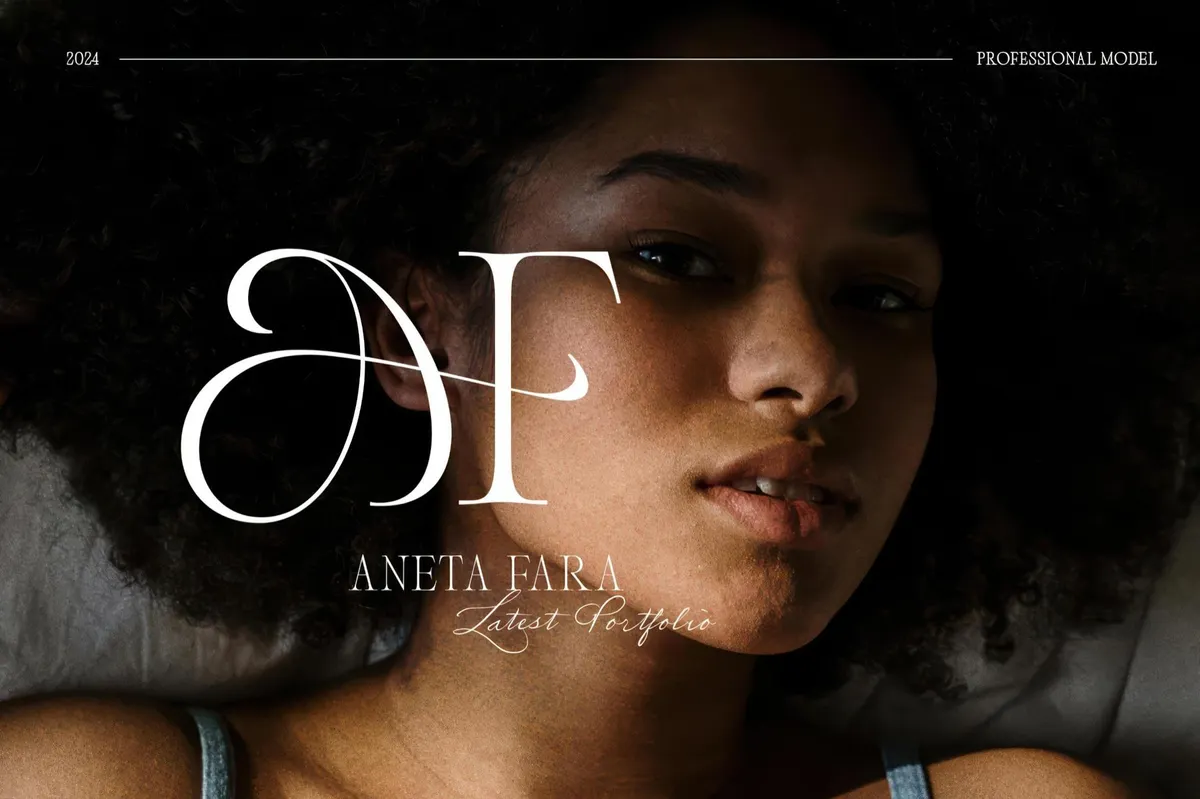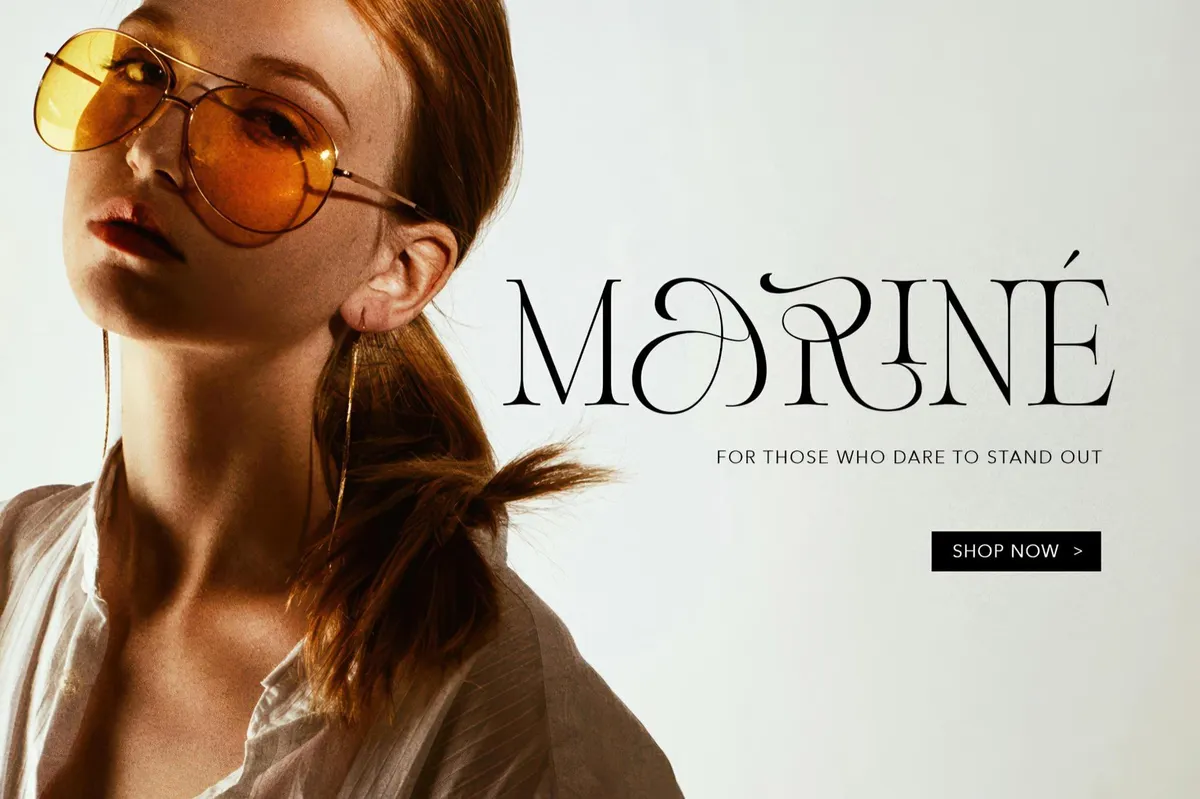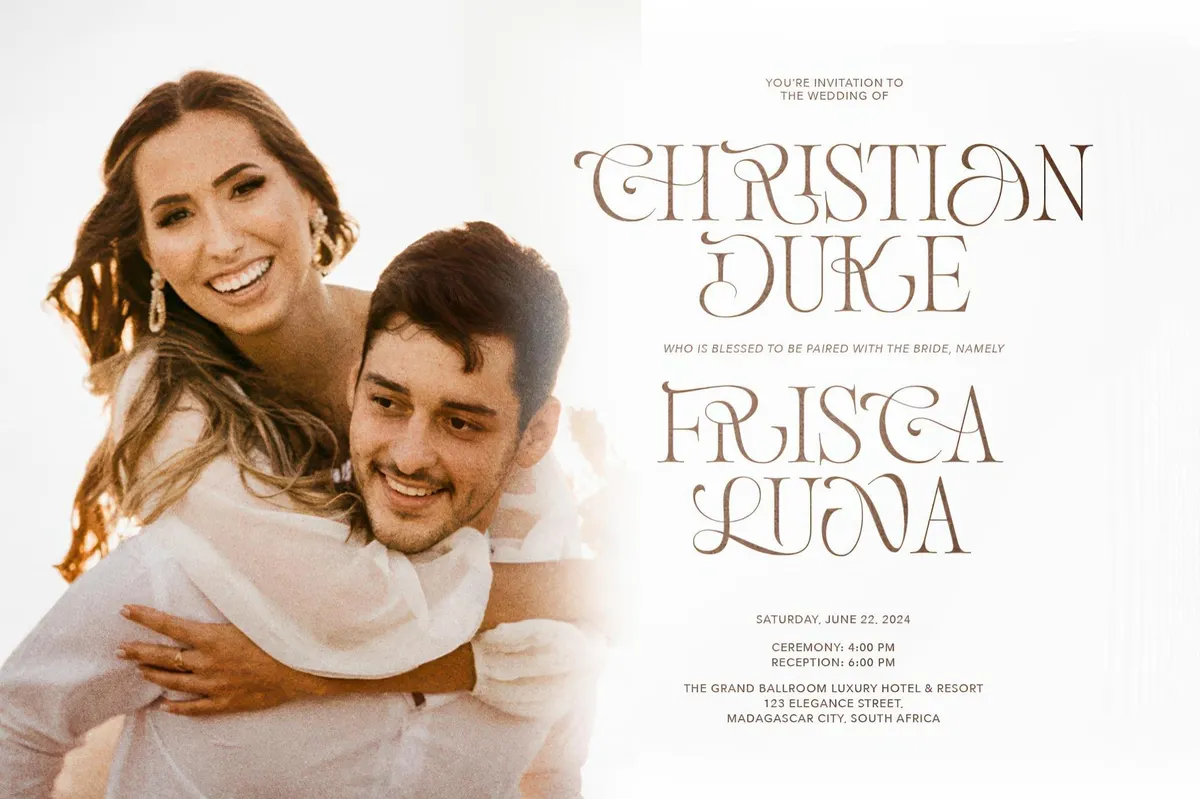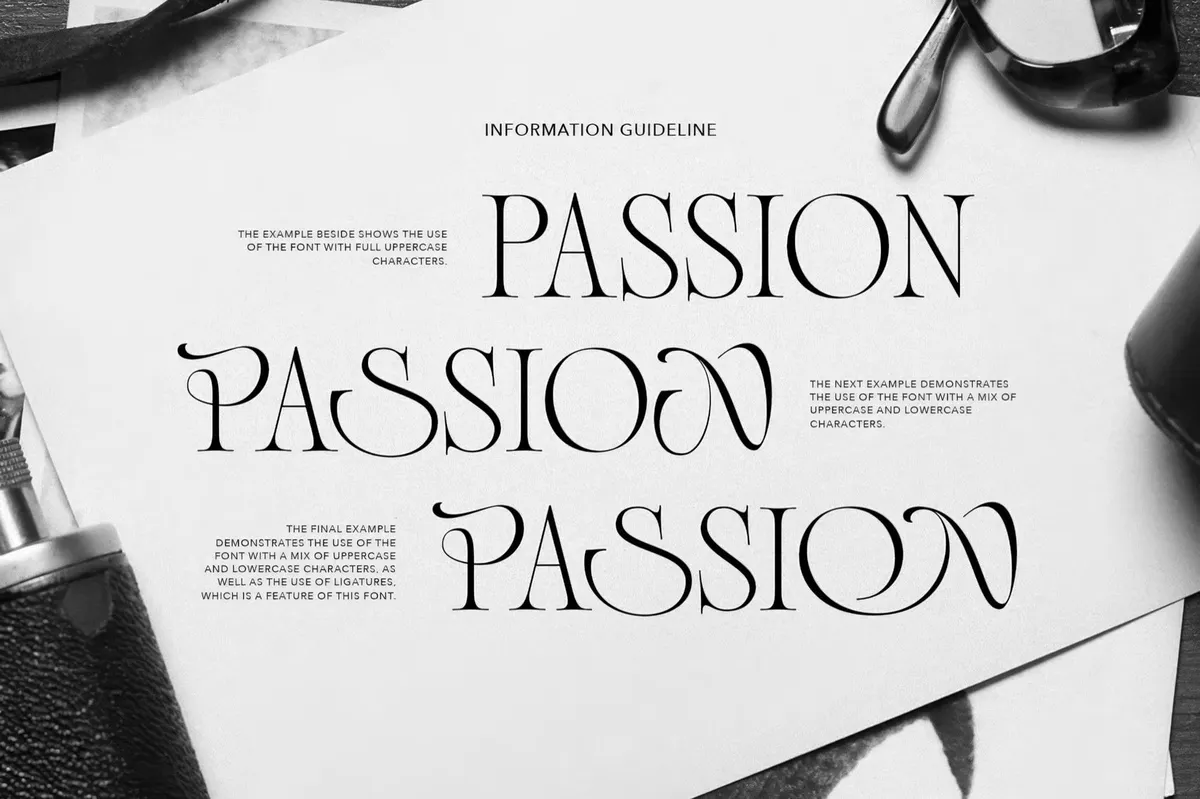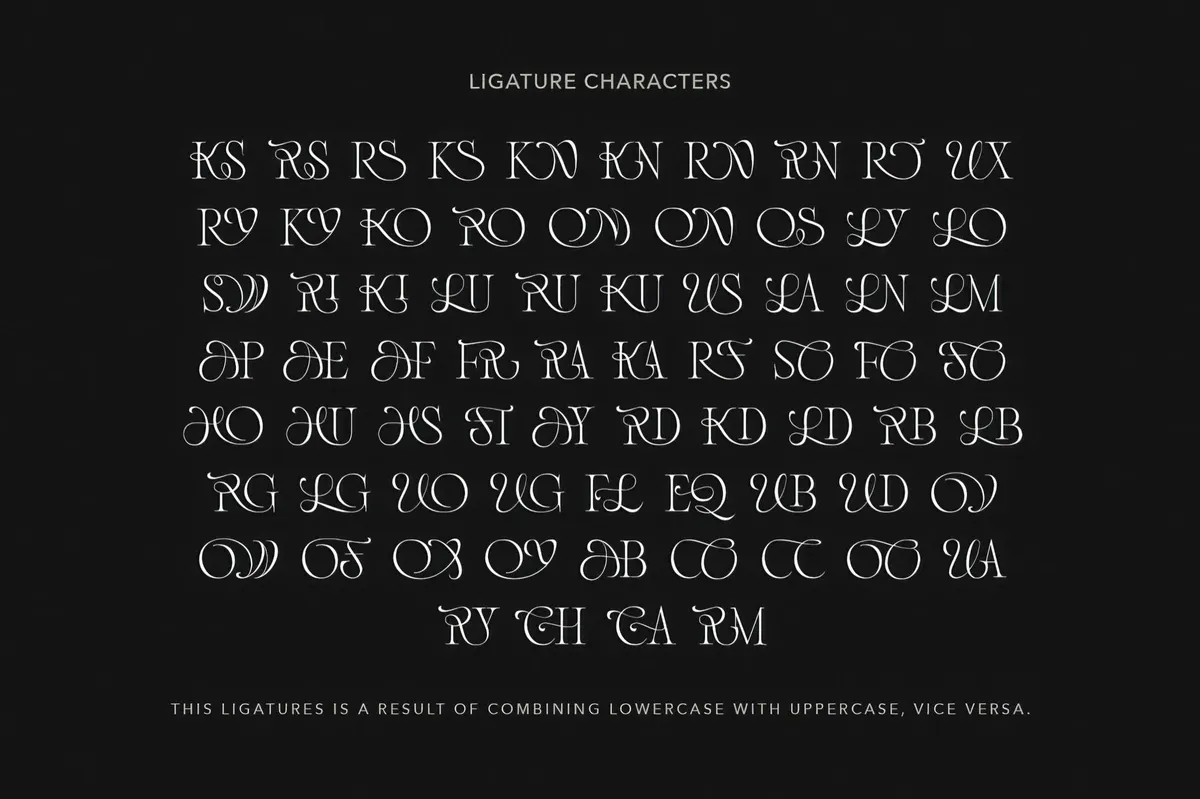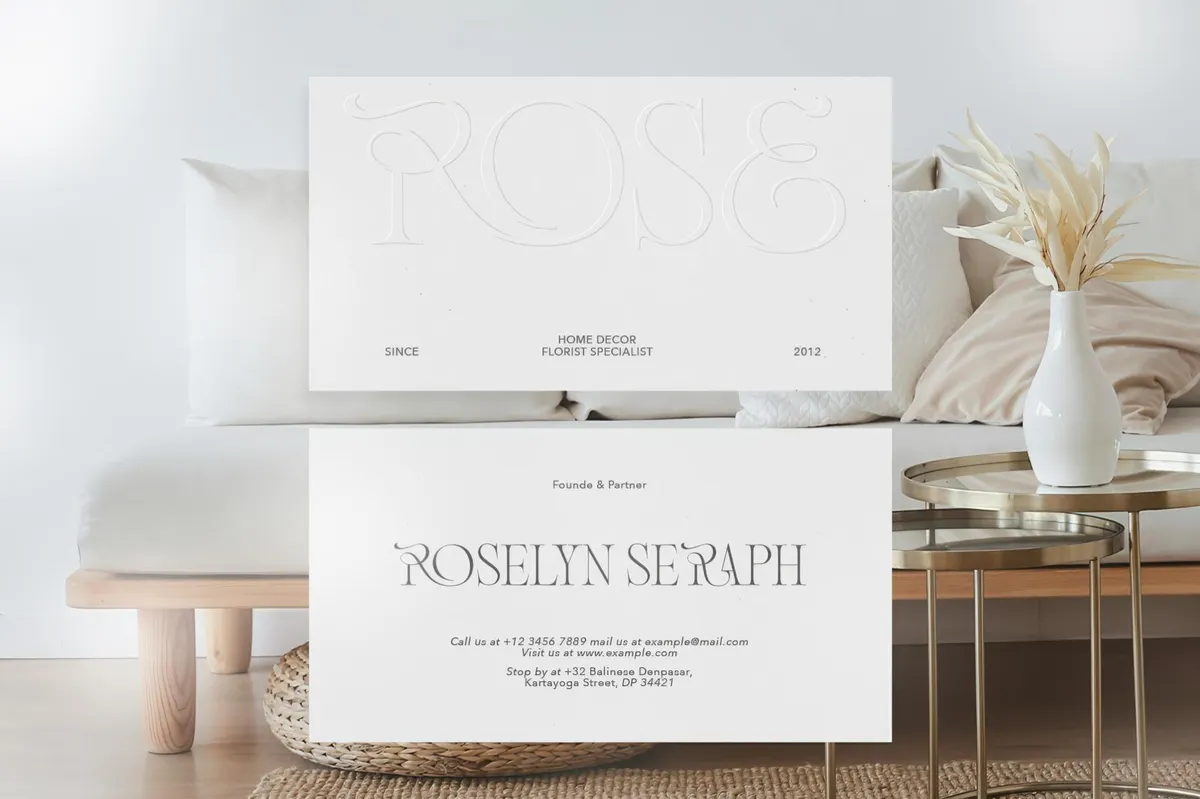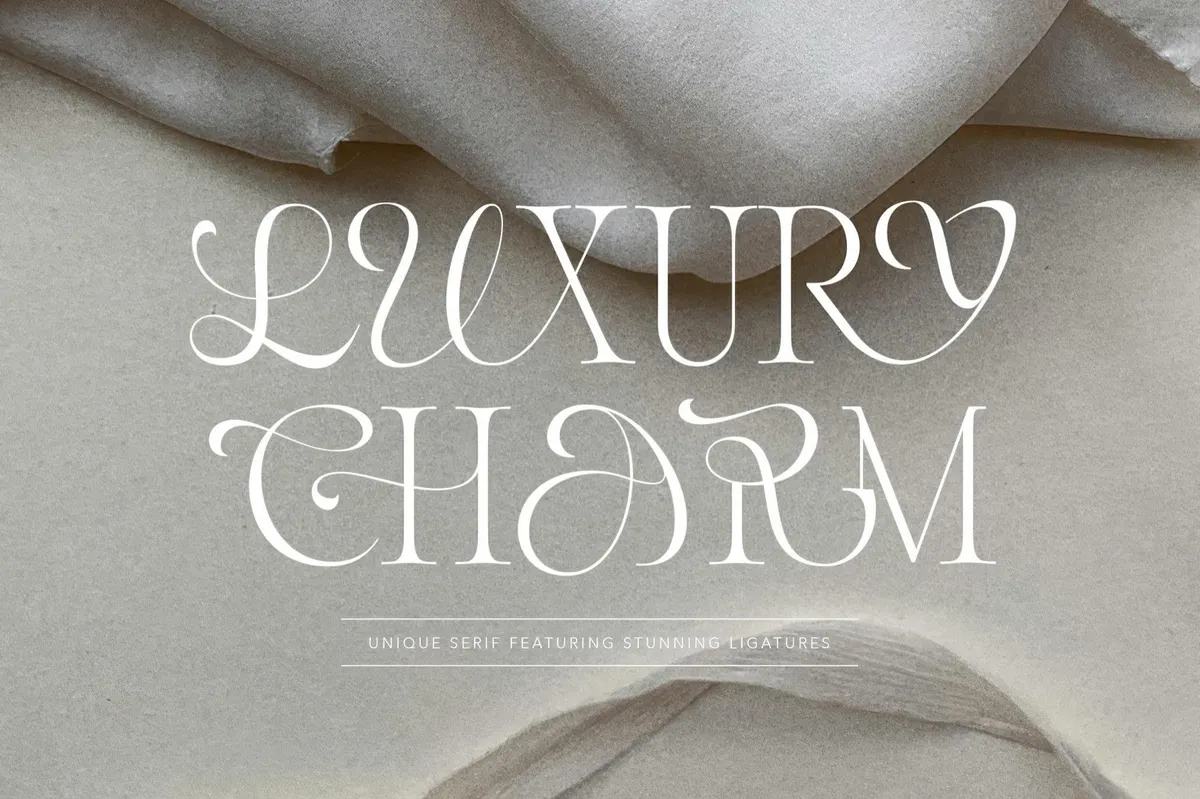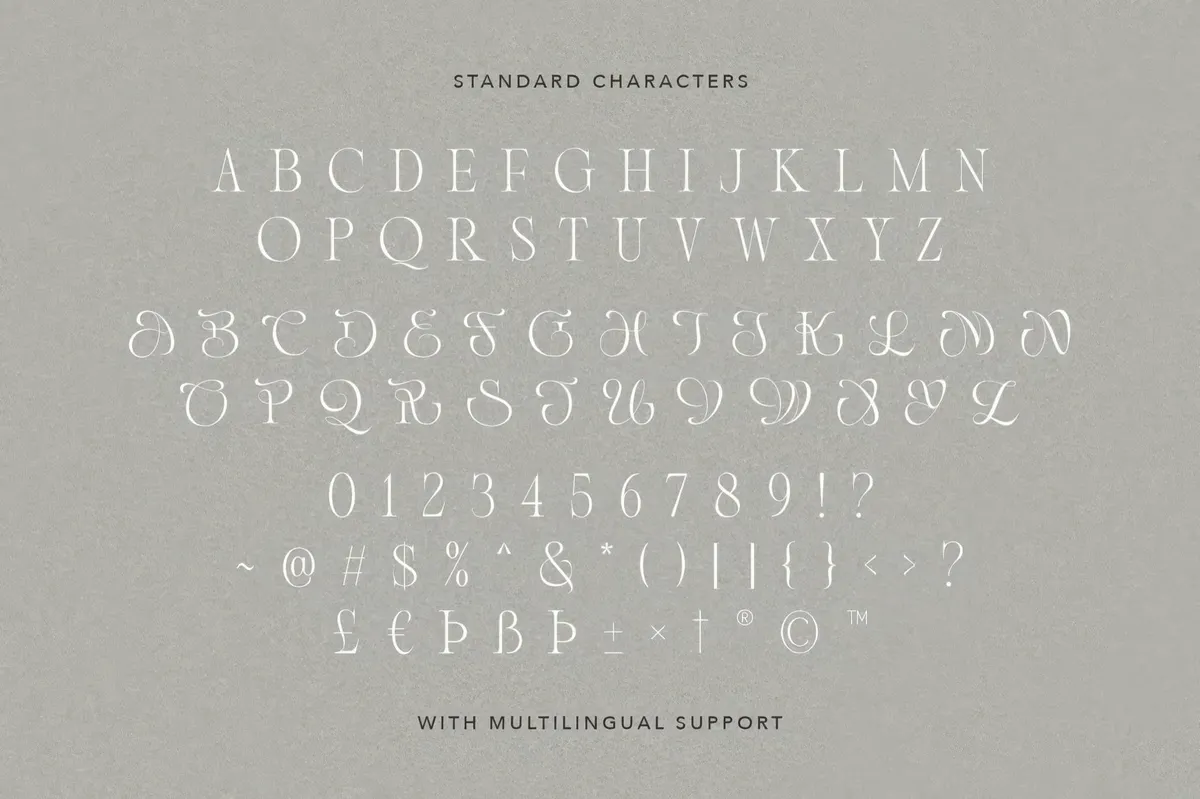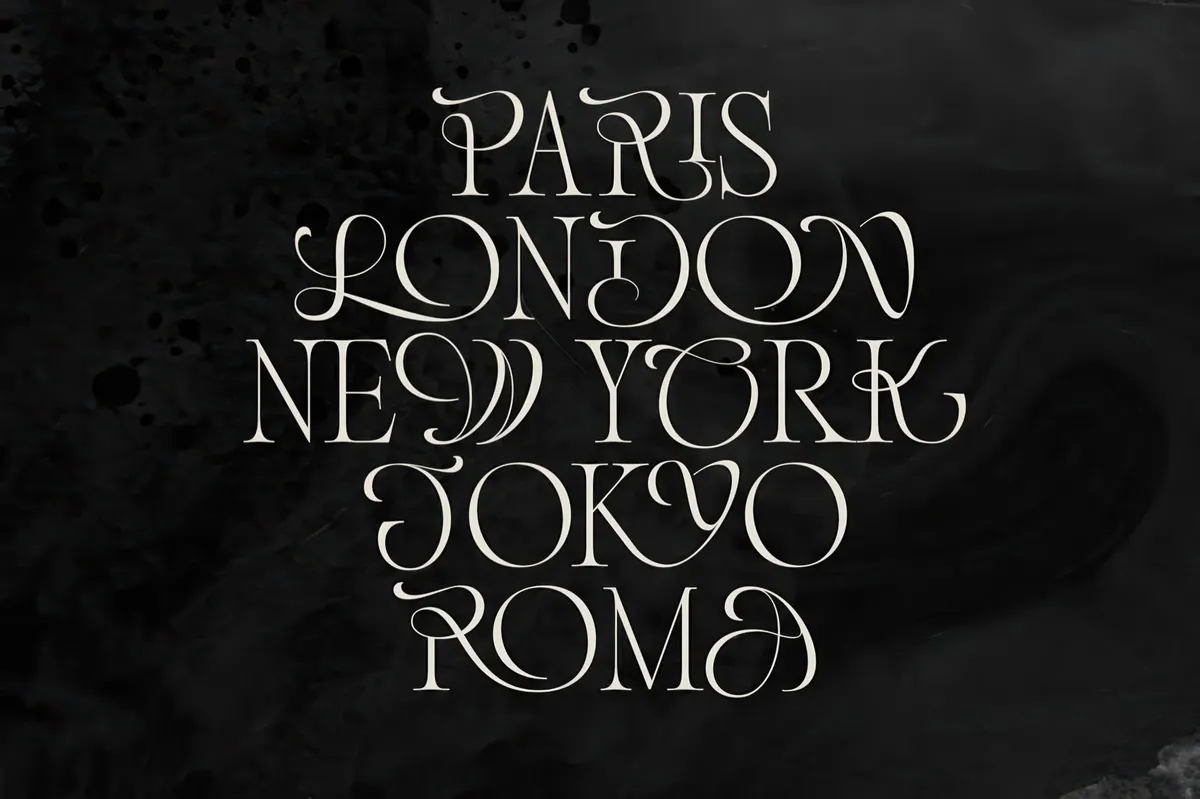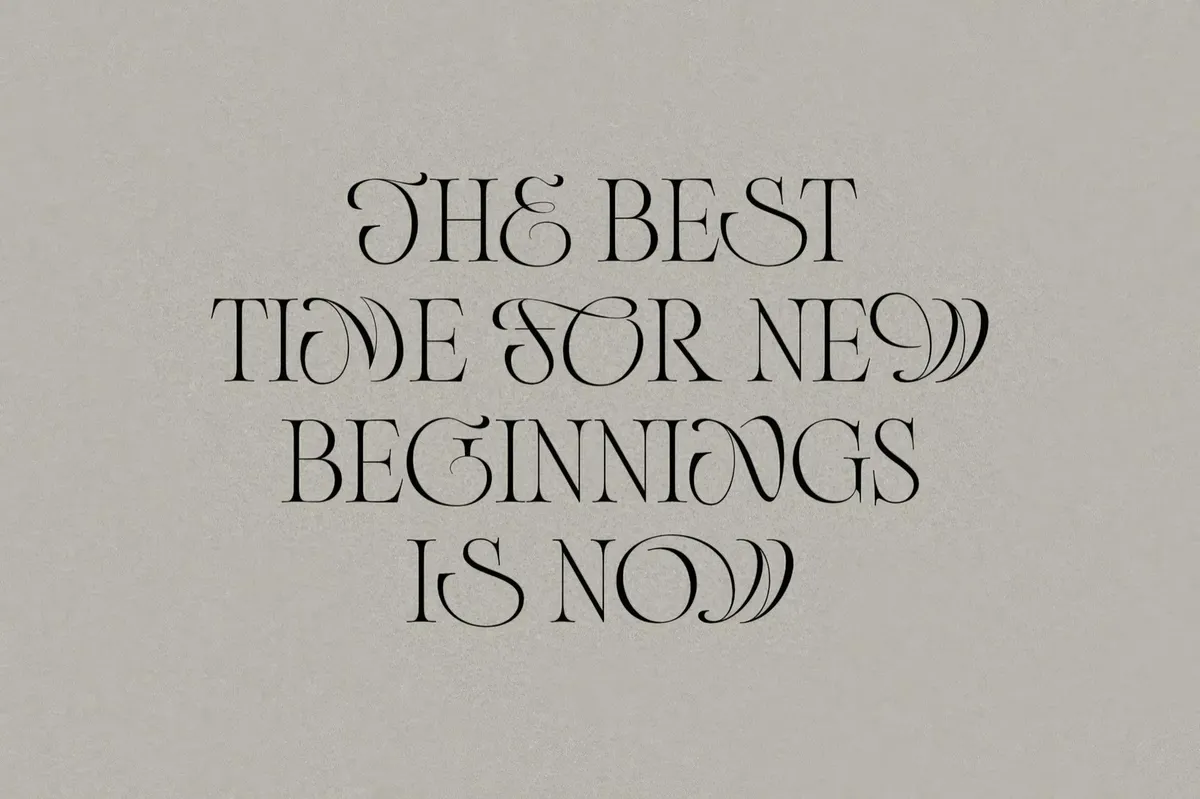
Luxury Charm — Modern Ligature Font
What if there was a font that had nothing but beauty and elegance to make everyone freeze in fascination? We've taken the liberty to perform some magic to get one of a kind: Luxury Charm, a classic serif font with stylish ligatures. Uppercases are thin and airy, while lowercases are an all-caps set of copperplate-like characters. You can use those at the beginning of a word or in the middle to attenuate a stylish and modern look. The beautiful ligatures, which combine two characters, add a touch of luxury and delicacy to the project: logos, branding, quotes, wedding invitations, packaging, signages, etc.